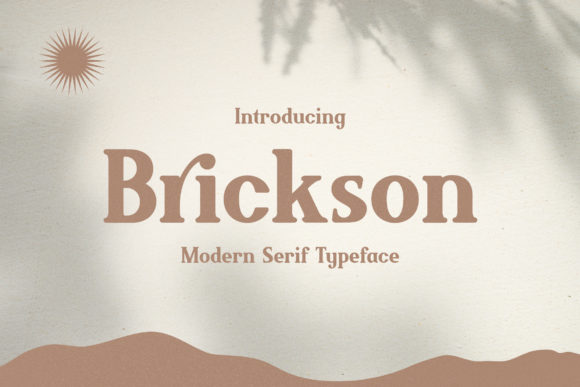
The Designer’s Delight: Uncovering the Elegance of Brickson Font
I’ll never forget the struggle I faced while working on a branding project for a high-end boutique hotel. My client wanted a font that exuded luxury, sophistication, and a touch of classic elegance. I scoured the internet, tried out countless fonts, but nothing seemed to fit the bill. That was until I stumbled upon Brickson Font. ✨
In this article, we’ll dive into the world of Brickson Font, exploring its unique features, what makes it special, and how you can make the most of it in your designs.
A First Impression: What Makes Brickson Font Special?
Brickson Font is a distinct, elegant serif font that seamlessly blends traditional influences into a contemporary aesthetic. Its neat craftsmanship makes it an incredibly versatile font that can be matched to a wide range of projects, from luxury branding to high-end editorial design.
What I Love About Brickson Font
- ✨ Elegant and refined: Brickson Font boasts a sophisticated, high-end feel that’s perfect for luxury brands and editorial projects.
- ✅ Versatile: Its classic serif design makes it suitable for a wide range of applications, from headings to body text.
- 💡 OpenType features: Brickson Font comes with a range of OpenType features, including stylistic alternates, ligatures, and swashes, giving you plenty of creative options.
While Brickson Font is an excellent choice for many projects, there are a few things to keep in mind:
- 🤔 Limited availability of certain characters: Some characters, like the Cyrillic alphabet, are not included in the standard font set.
- ⚠️ Not ideal for body text: While Brickson Font can be used for body text, its elegant, refined nature makes it more suited for headings and titles.
The Designer Inspiration Behind Brickson Font
Brickson Font was designed with the goal of creating a modern, elegant serif font that pays homage to traditional typography. Its creator drew inspiration from classic serif fonts, infusing them with a contemporary twist to create a unique, sophisticated aesthetic.
Q: What makes Brickson Font unique?
A: Brickson Font’s unique blend of traditional and contemporary elements, along with its elegant, refined aesthetic, sets it apart from other serif fonts.
Q: Is Brickson Font suitable for body text?
A: While Brickson Font can be used for body text, its elegant, refined nature makes it more suited for headings and titles.